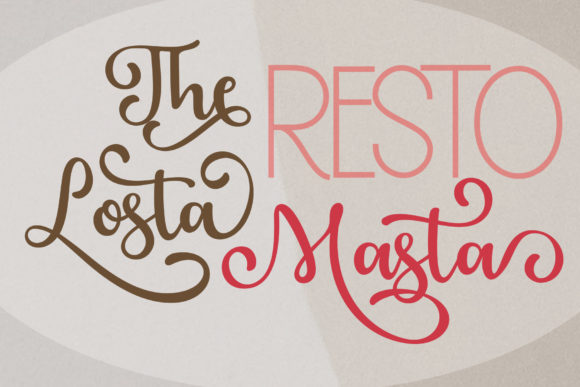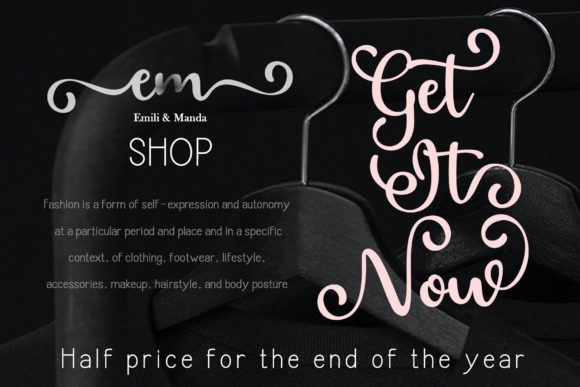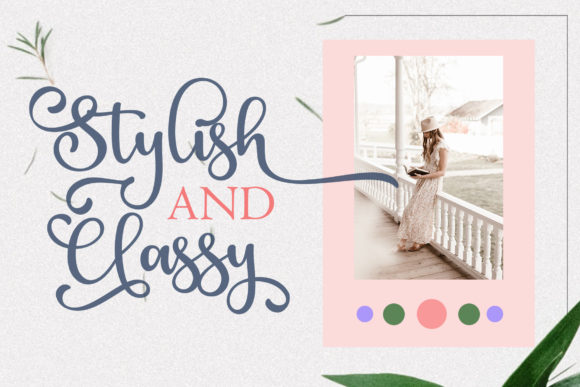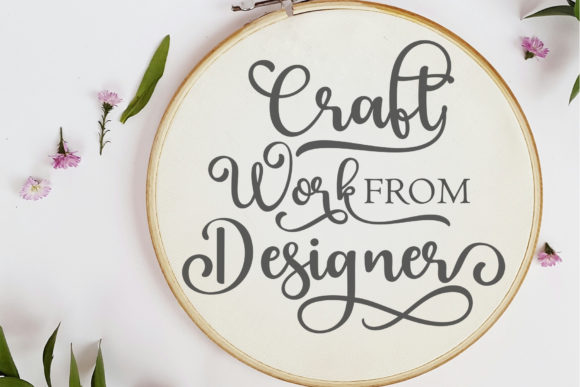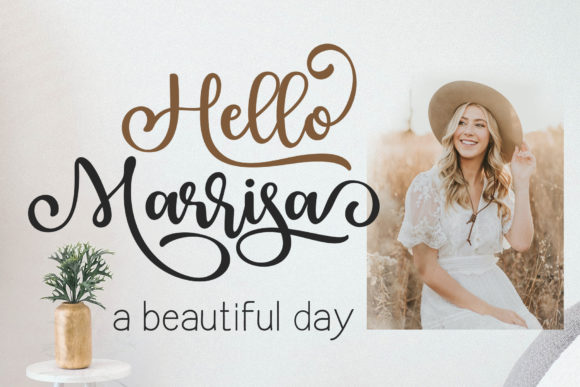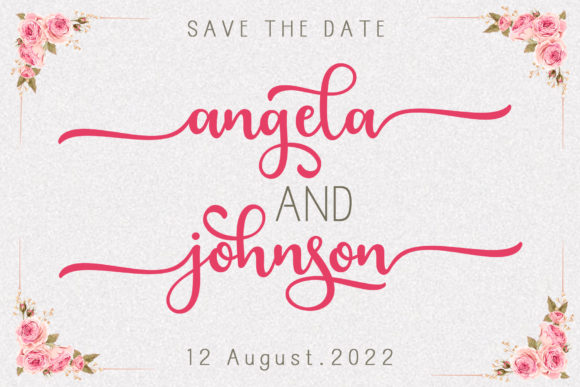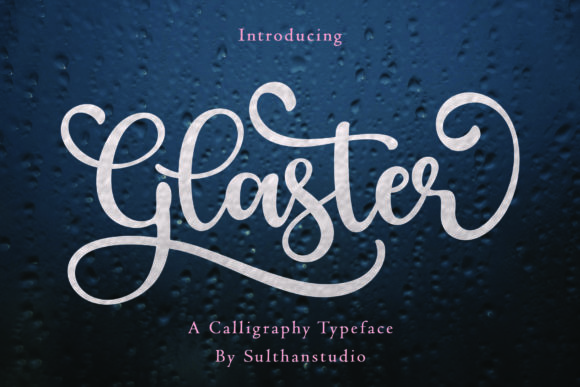
Discover the Elegance of Glaster Font: A Bold and Versatile Calligraphy Typeface
Are you a designer or crafter looking for a font that can elevate your creative projects to the next level? Look no further than Glaster Font, a stunning calligraphy typeface that exudes elegance and sophistication. With its distinctive style and incredibly versatile nature, Glaster is the perfect choice for anyone seeking to add a touch of luxury to their designs.
What is Glaster Font?
Glaster Font is a beautiful calligraphy typeface that boasts a bold and elegant script style. Its unique design makes it stand out from other fonts, and its versatility ensures that it can be used in a wide range of creative projects. Whether you’re designing a logo, creating a social media graphic, or crafting a wedding invitation, Glaster Font is the perfect choice.
Key Features of Glaster Font
So, what makes Glaster Font so special? Here are just a few of its key features:
- Bold and Elegant: Glaster Font features a bold and elegant script style that is sure to turn heads.
- Versatile: With its unique design, Glaster Font can be used in a wide range of creative projects, from logos and branding materials to social media graphics and craft projects.
- Distinctive Style: Glaster Font has a distinctive style that sets it apart from other fonts, making it perfect for designers and crafters looking to create something truly unique.
Uses for Glaster Font
Glaster Font is incredibly versatile, making it suitable for a wide range of creative projects. Here are just a few ideas to get you started:
- Logo Design: Use Glaster Font to create a bold and elegant logo that will help your brand stand out.
- Social Media Graphics: Add a touch of luxury to your social media graphics with Glaster Font.
- Wedding Invitations: Create beautiful and elegant wedding invitations with Glaster Font.
- Craft Projects: Use Glaster Font to add a personal touch to your craft projects, such as scrapbooking, card making, and more.
Tips for Using Glaster Font
To get the most out of Glaster Font, here are a few tips to keep in mind:
- Use it Sparingly: While Glaster Font is bold and elegant, it can be overwhelming if used too much. Use it sparingly to create a focal point in your design.
- Experiment with Colors: Glaster Font looks great in a variety of colors, so don’t be afraid to experiment and find the perfect hue for your design.
- Pair it with Other Fonts: Glaster Font pairs well with other fonts, so try combining it with a simpler font to create a striking contrast.
In conclusion, Glaster Font is a beautiful calligraphy typeface that is sure to elevate your creative projects to the next level. With its bold and elegant script style, distinctive design, and incredibly versatile nature, Glaster Font is the perfect choice for designers and crafters looking to add a touch of luxury to their designs. So why wait? Fall in love with Glaster Font and start creating spectacular designs today!